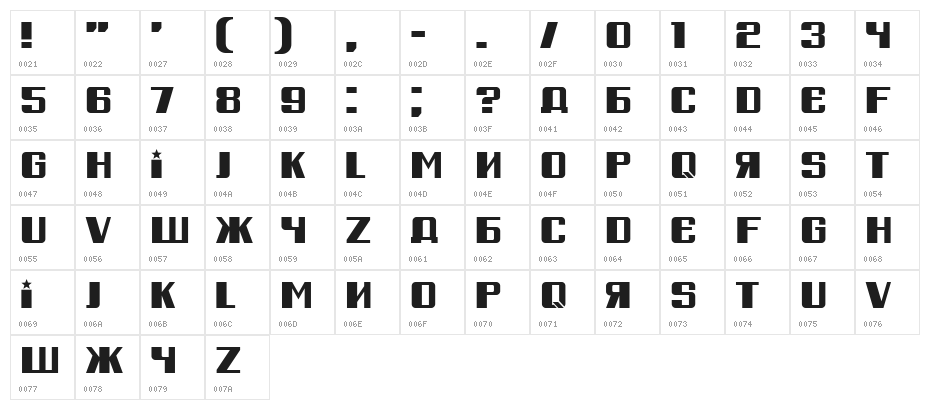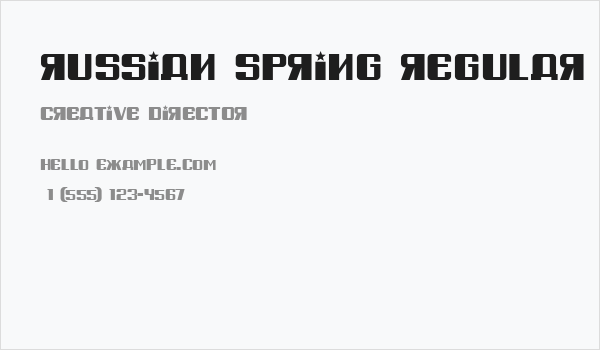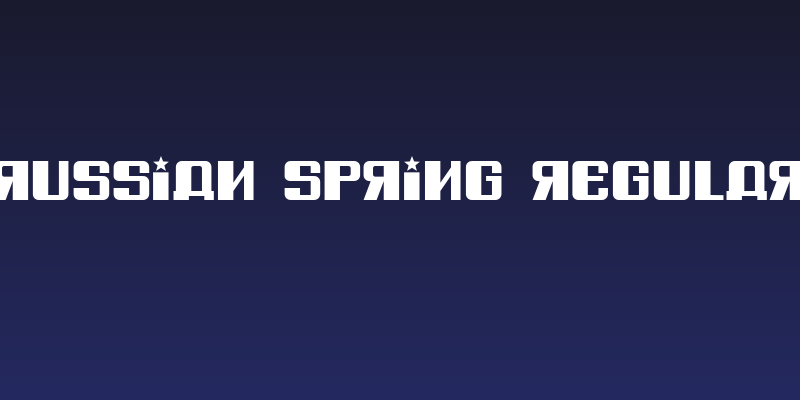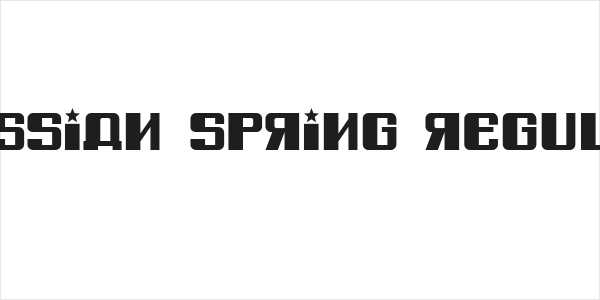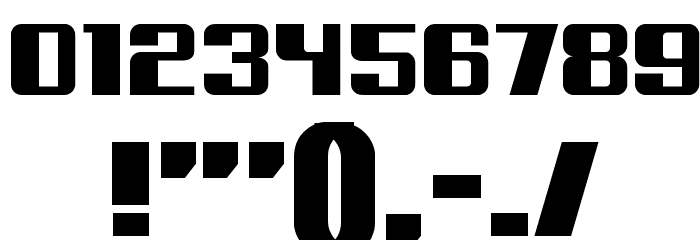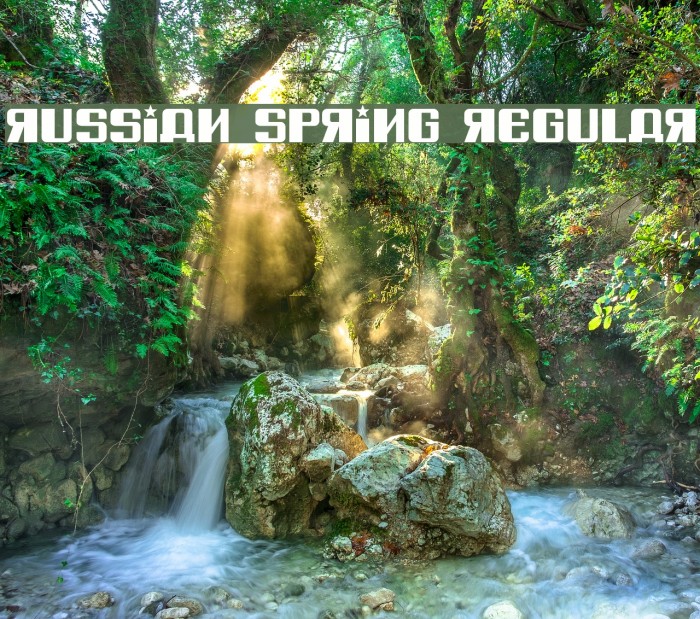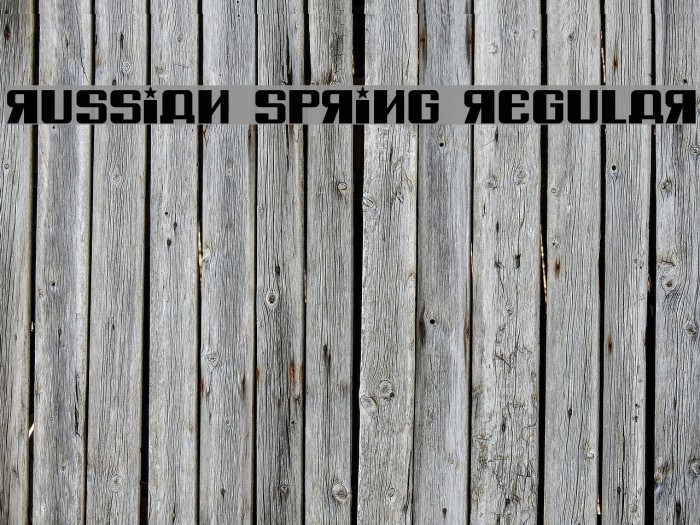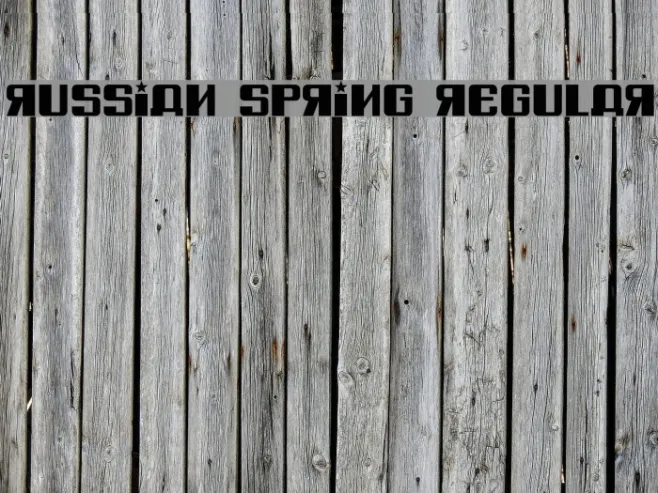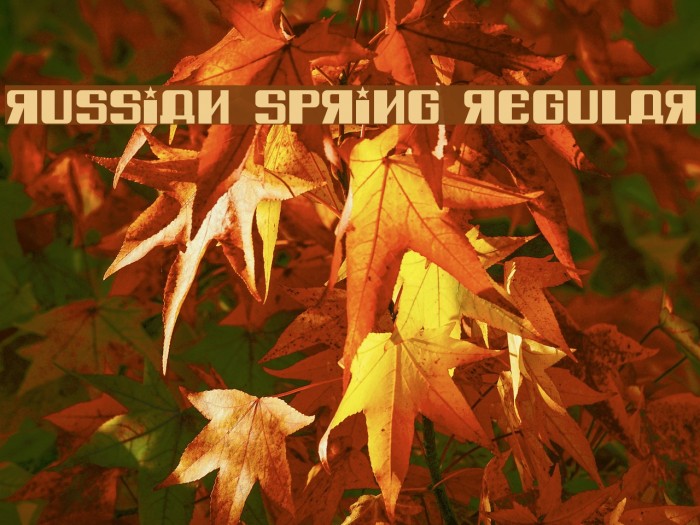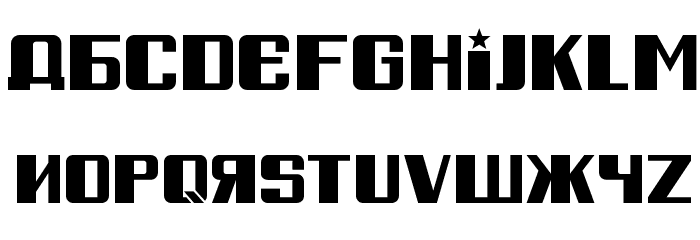
Russian Spring Regular Font
Russian Spring Regular Description
This font features a bold and impactful design with a strong geometric structure. The characters are blocky and robust, with a distinct industrial feel. The uppercase letters are uniform in height, creating a cohesive and powerful visual impact. Some letters incorporate unique design elements, such as stars or slashes, adding a decorative touch. The numbers and special characters maintain the same boldness, ensuring consistency across all glyphs. This font is ideal for projects that require a strong and assertive presence, making it suitable for headlines, posters, and branding materials.
| Overall Style | Modern, Industrial |
| Use Case | Headlines, Posters, Branding |
| Proposed Projects | Ideal for use in headlines, posters, branding, and any project requiring a strong visual impact. |